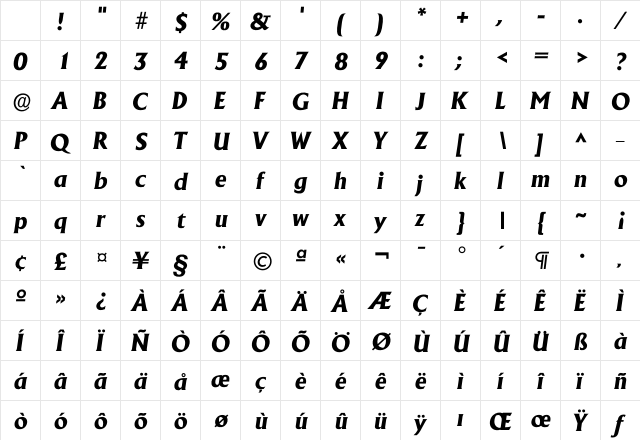
Complete Iadelon Bold glyph index. Displaying only characters natively supported by Iadelon Bold font.
Iadelon is a composed and adaptable typeface that performs quietly and consistently across a wide range of design contexts. Its bold stroke weight gives it real presence on the page.